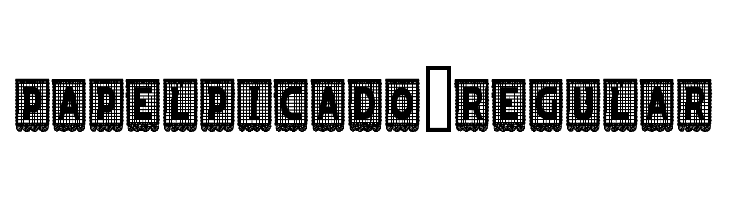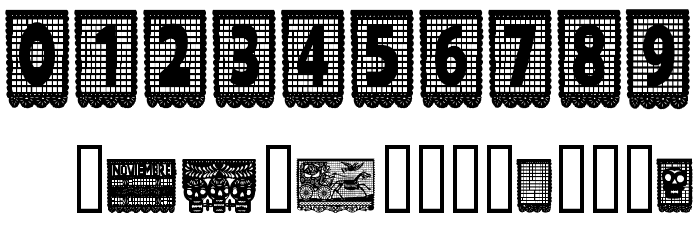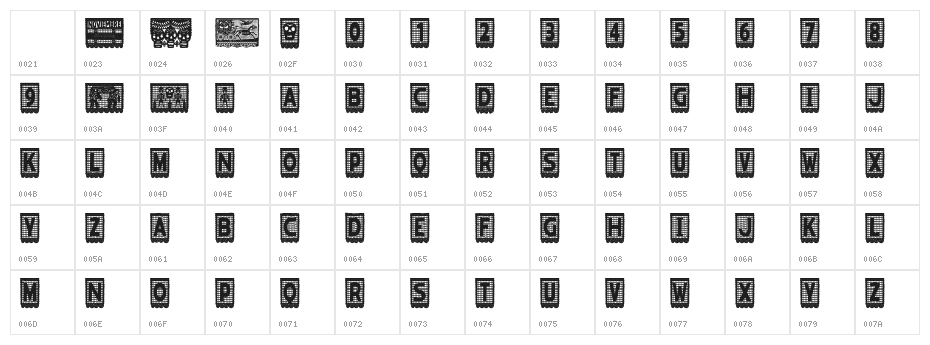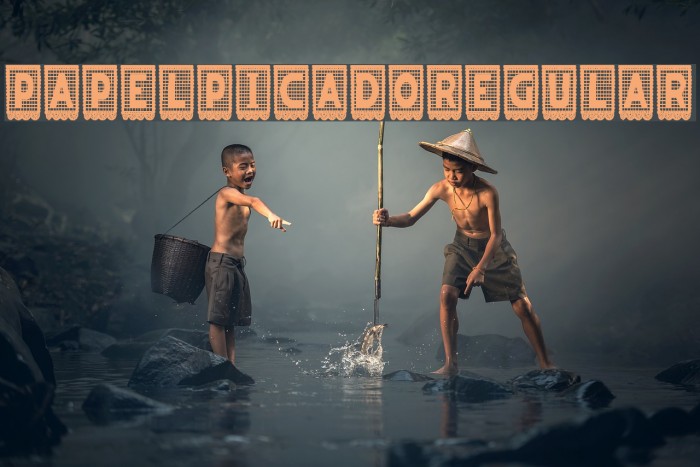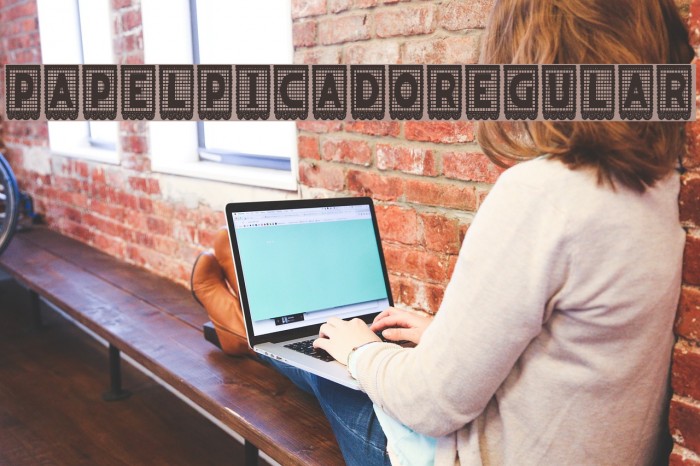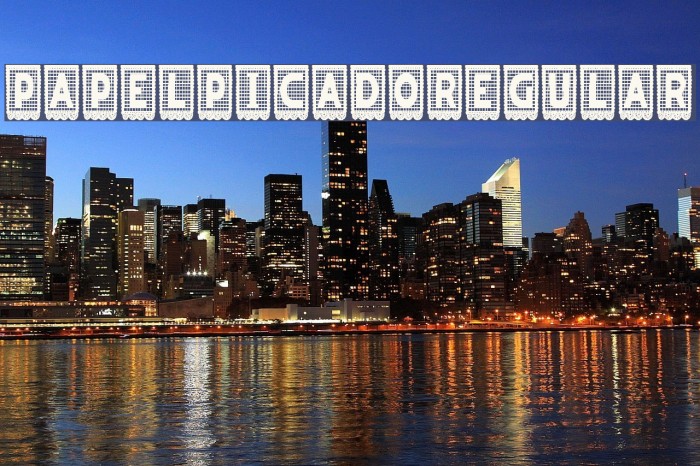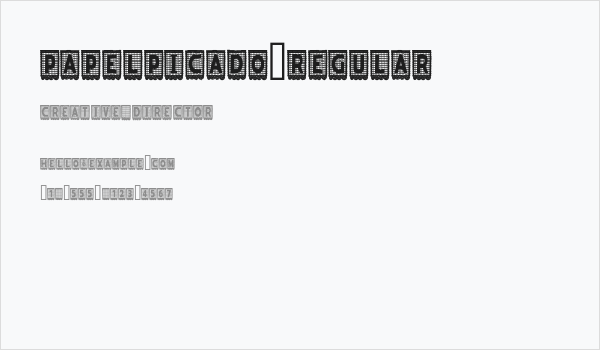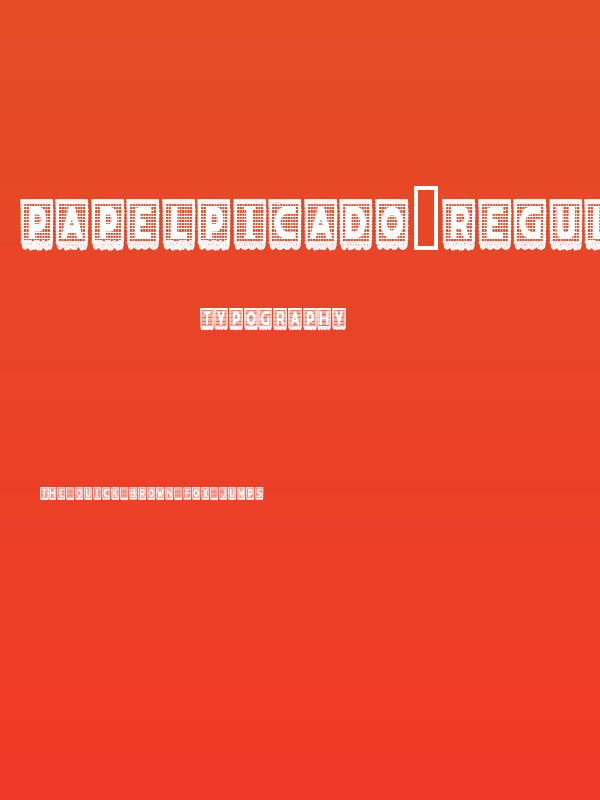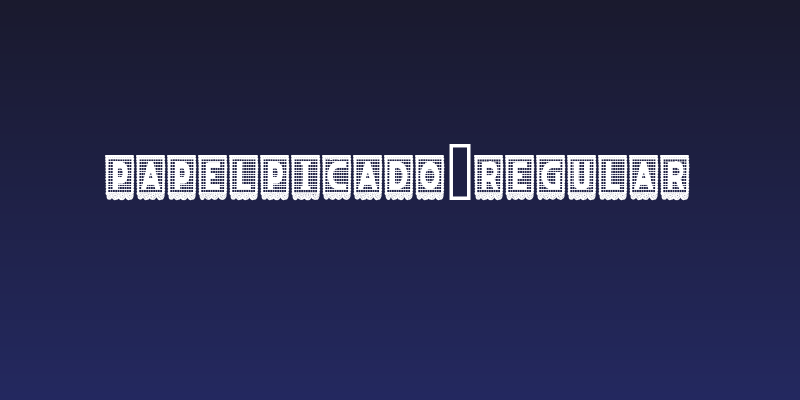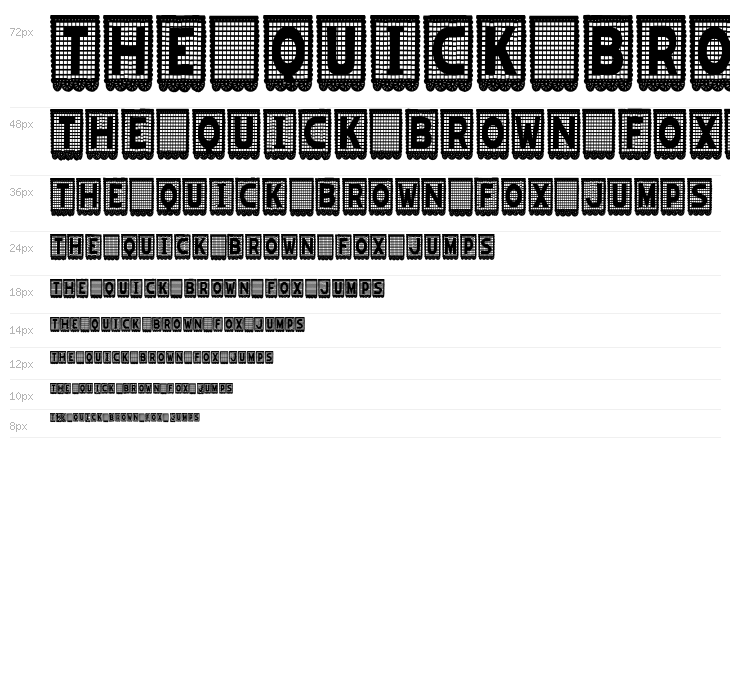
papelpicado-Regular Font
papelpicado-Regular Description
This font is a decorative typeface inspired by traditional papel picado designs, featuring intricate cut-out patterns within each character. The letters are enclosed in rectangular frames with scalloped edges, resembling the festive and ornate style of Mexican paper art. The design is highly detailed, with each character showcasing a unique pattern of dots and lines, creating a vibrant and celebratory appearance. This font captures the essence of cultural festivities and is perfect for adding a touch of traditional artistry to any project. Its bold and intricate style makes it stand out, while the uniformity of the frames ensures consistency across all characters.
| Proposed Projects | Ideal for festive event invitations, cultural festival posters, themed party decorations, and artistic projects requiring a traditional and celebratory touch. |